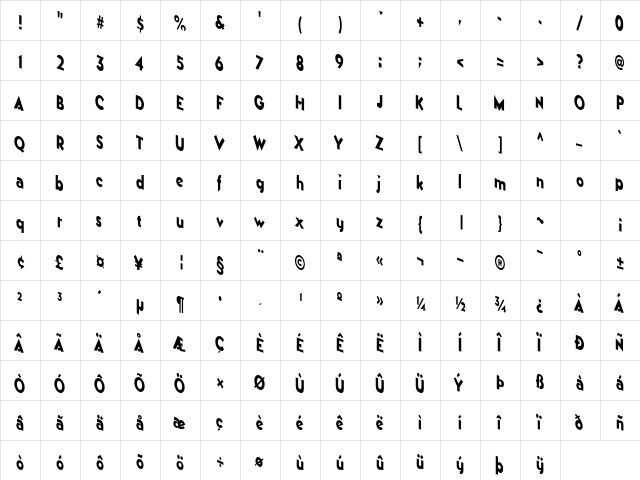
Down Regular
Design Context for Down Typeface
Down offers clean, dependable letterforms without strong stylistic allegiance, making it a practical choice for designers who need flexibility.